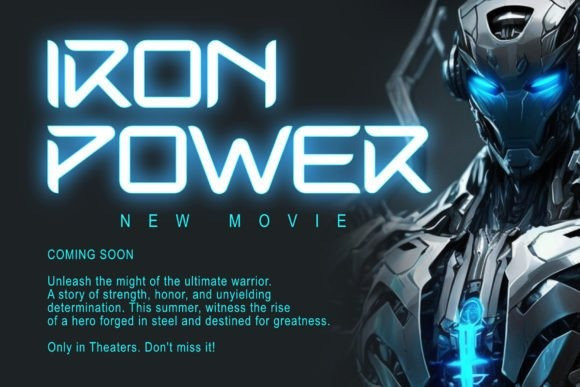
Kaher Font
Kaher Font – Modern Techno Font is a contemporary corporate font with a balanced, modern, minimalist, distinctive, and iconic design. This font is characterized by its minimalist style, making it ideal for branding projects, logos, poster designs, social media posts, advertisements, product packaging, product designs, labels, photography, watermarks, invitations, stationery, and other projects that require a modern and stylish look.